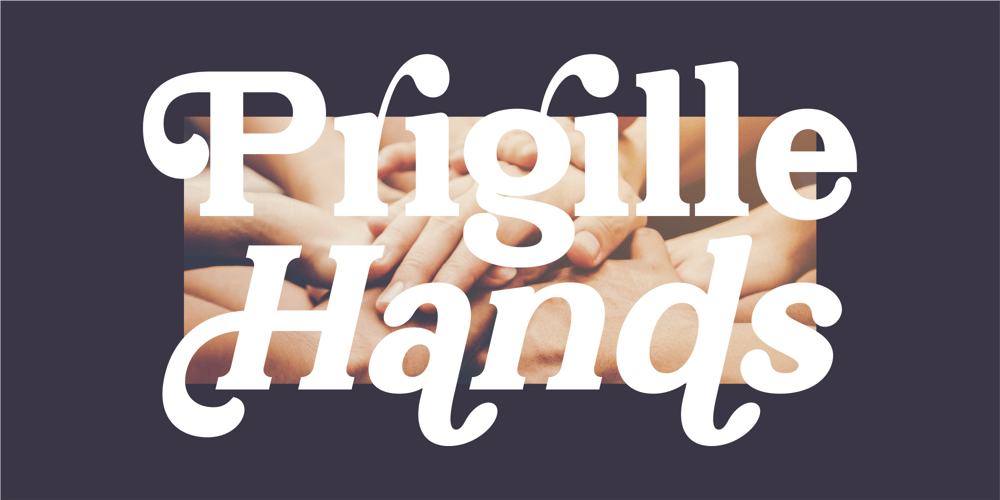
Prigille Hands
Prigille Hands font
Prigille Hands Font Family was designed by Heru Utama Putra and published by Letterena Studios. Prigille Hands contains 2 styles and family package options. Prigille Hands is a modern and clean display (Serif) font create from our talented font designer. The design of Prigille Hands will make your design more beautiful and inspiring. This font will suitable for any project, like branding, print template, logo and etc.This font is inspired by the joining of hands which means good teamwork.Features: Accents (Multilingual characters) Alternates Ligautures PUA encoded Numerals and Punctuation (OpenType Standard)